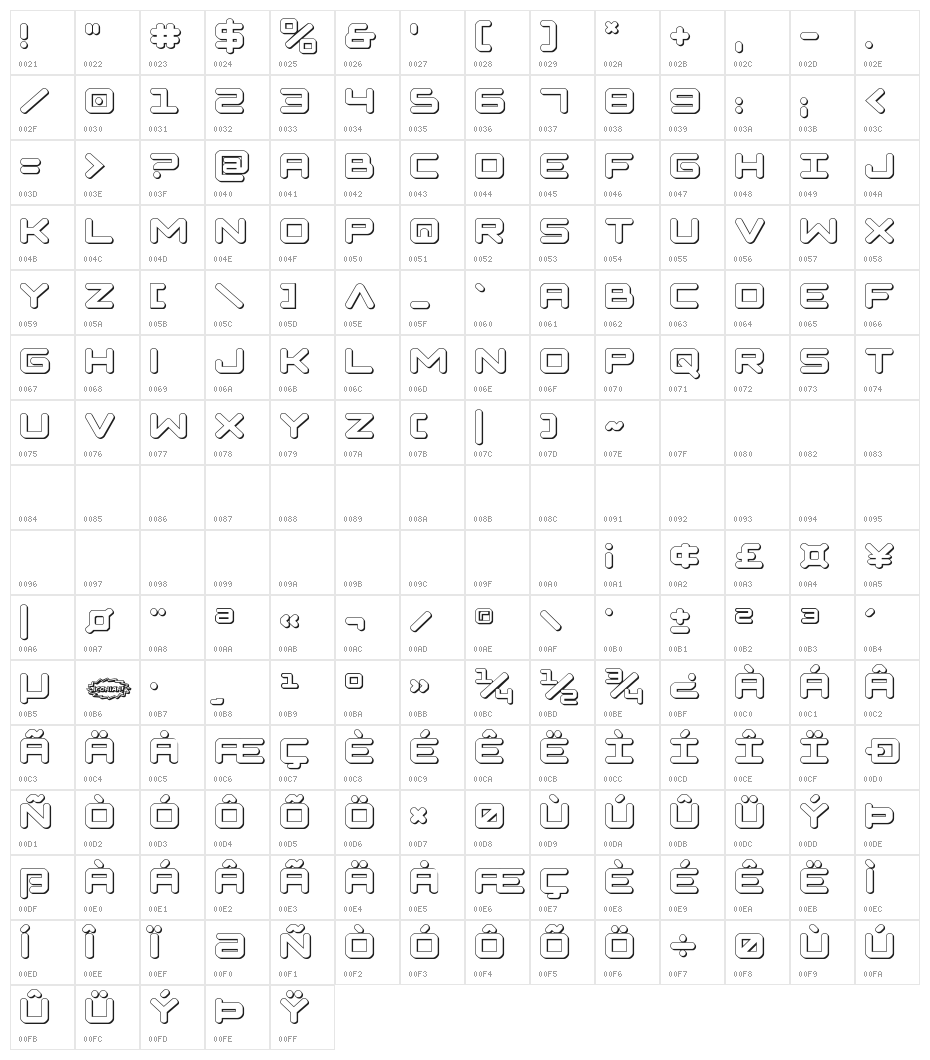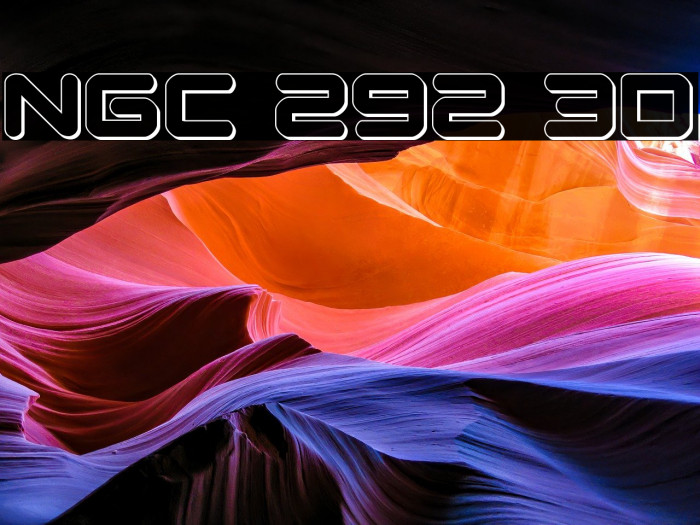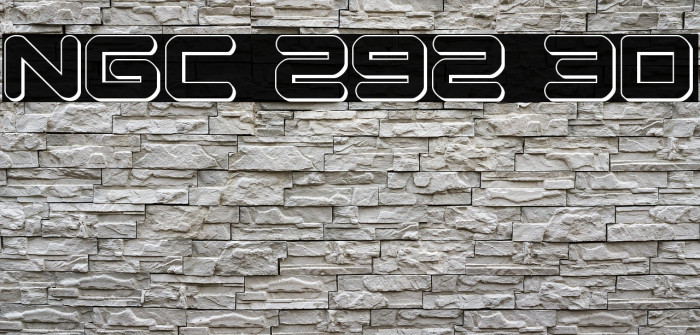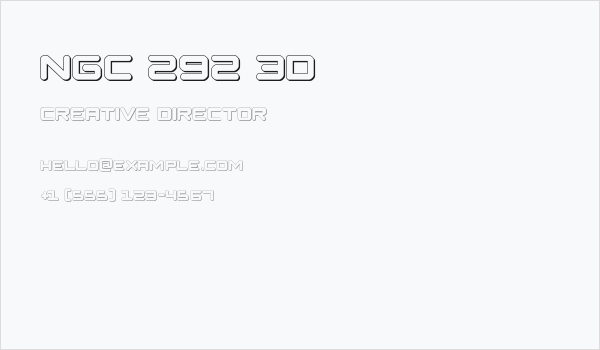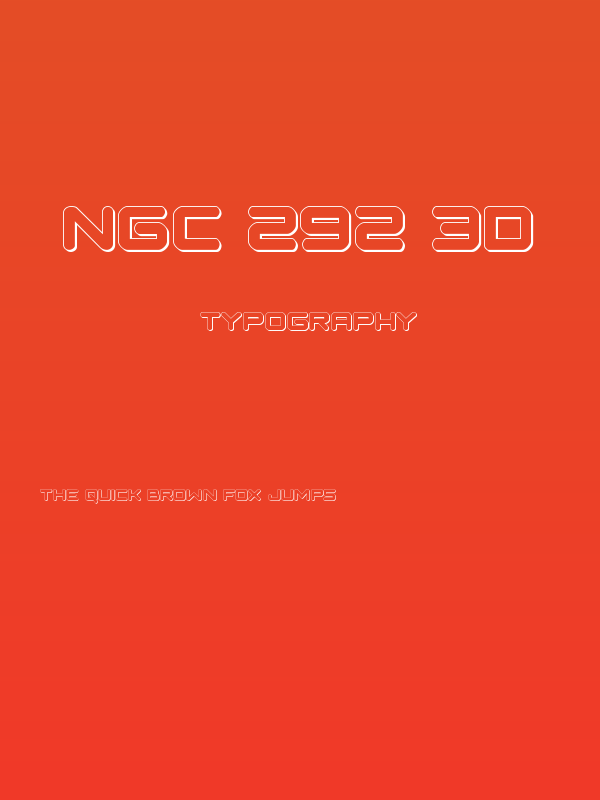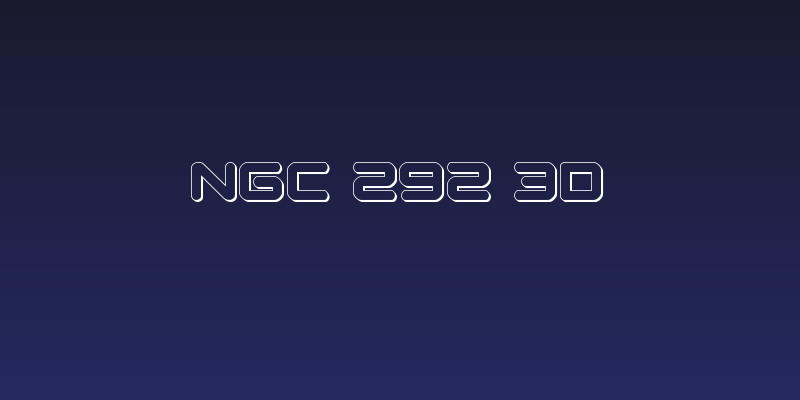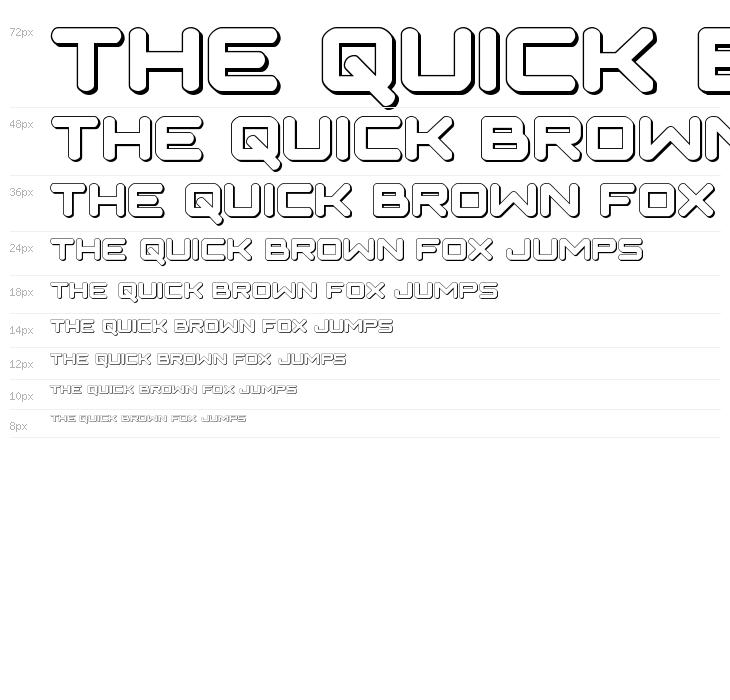
NGC 292 3D Font
NGC 292 3D Description
This font features a bold, three-dimensional outline style that gives each character a distinct, futuristic appearance. The letters are uppercase and lowercase, with a consistent geometric structure that emphasizes straight lines and sharp angles. The numbers and special characters maintain this cohesive design, making the font suitable for modern and tech-oriented themes. The spacing between characters is normal, allowing for clear readability while maintaining the unique aesthetic. The font's high contrast between the thick outlines and the inner space enhances its visual impact, making it ideal for eye-catching designs.
| Proposed Projects | Ideal for tech branding, futuristic posters, video game titles, and sci-fi themed projects. |